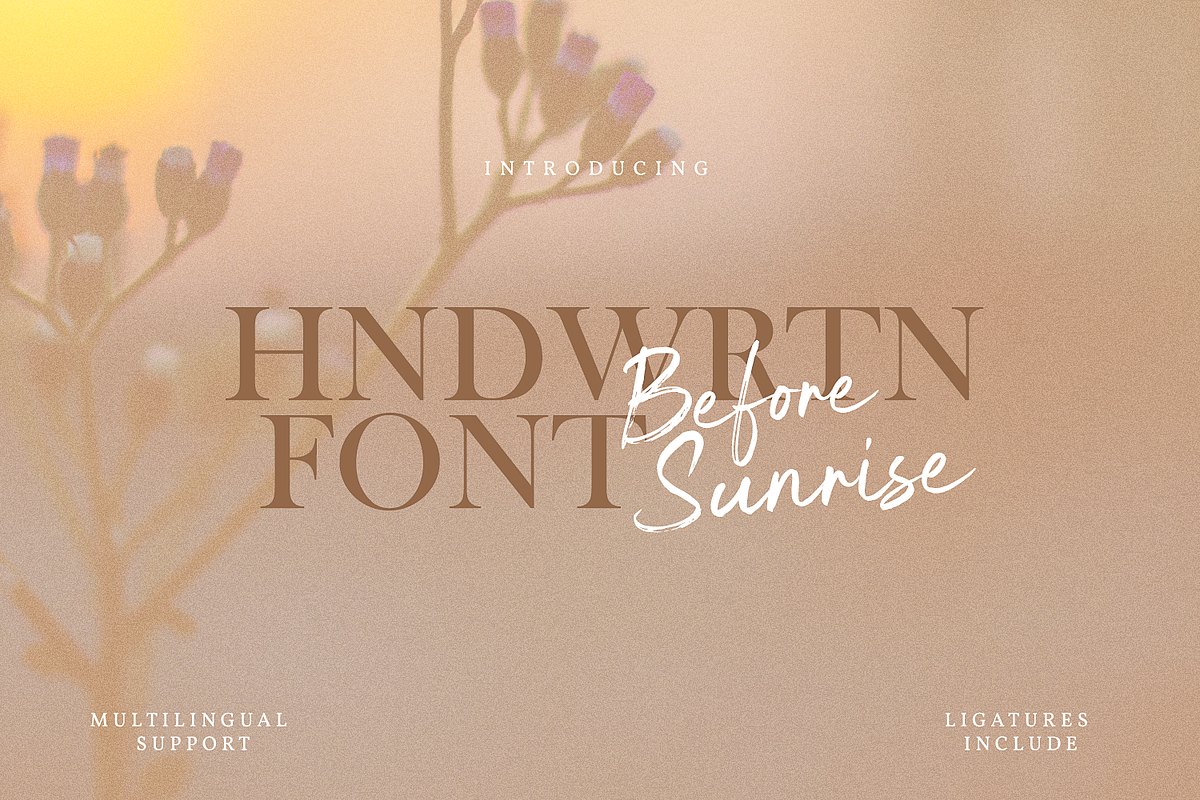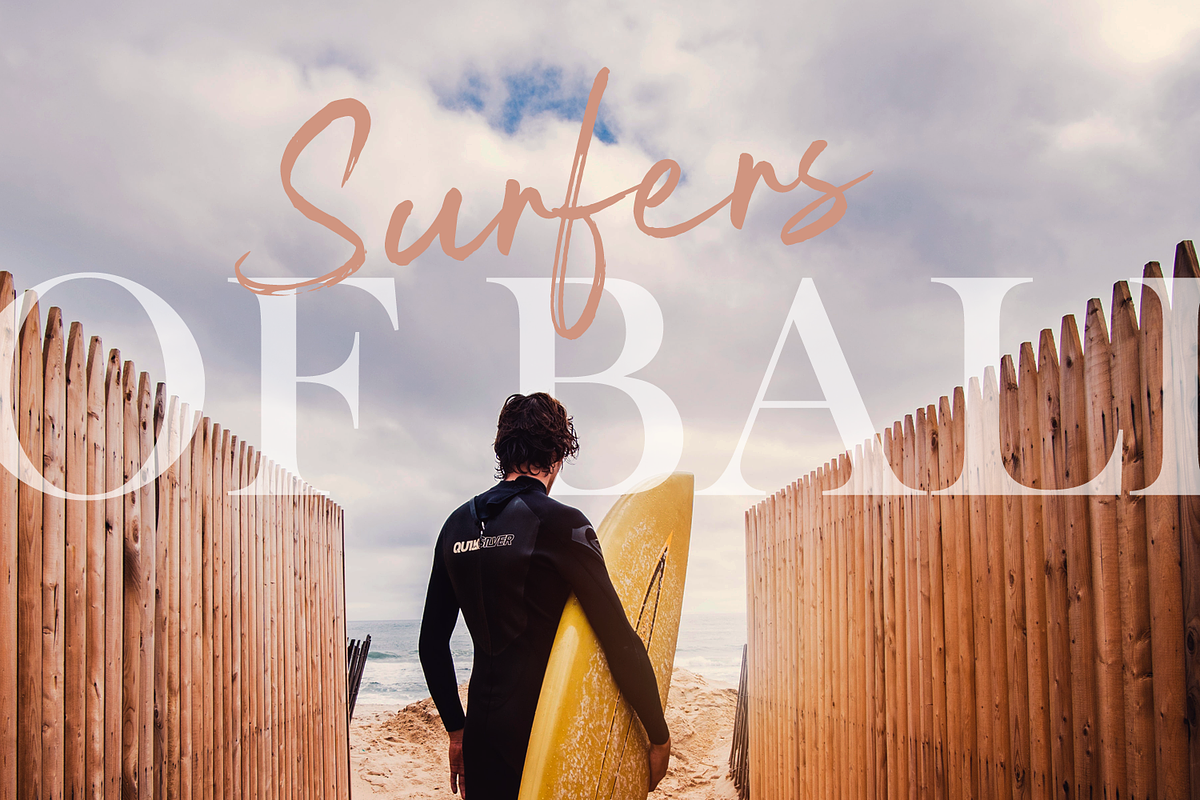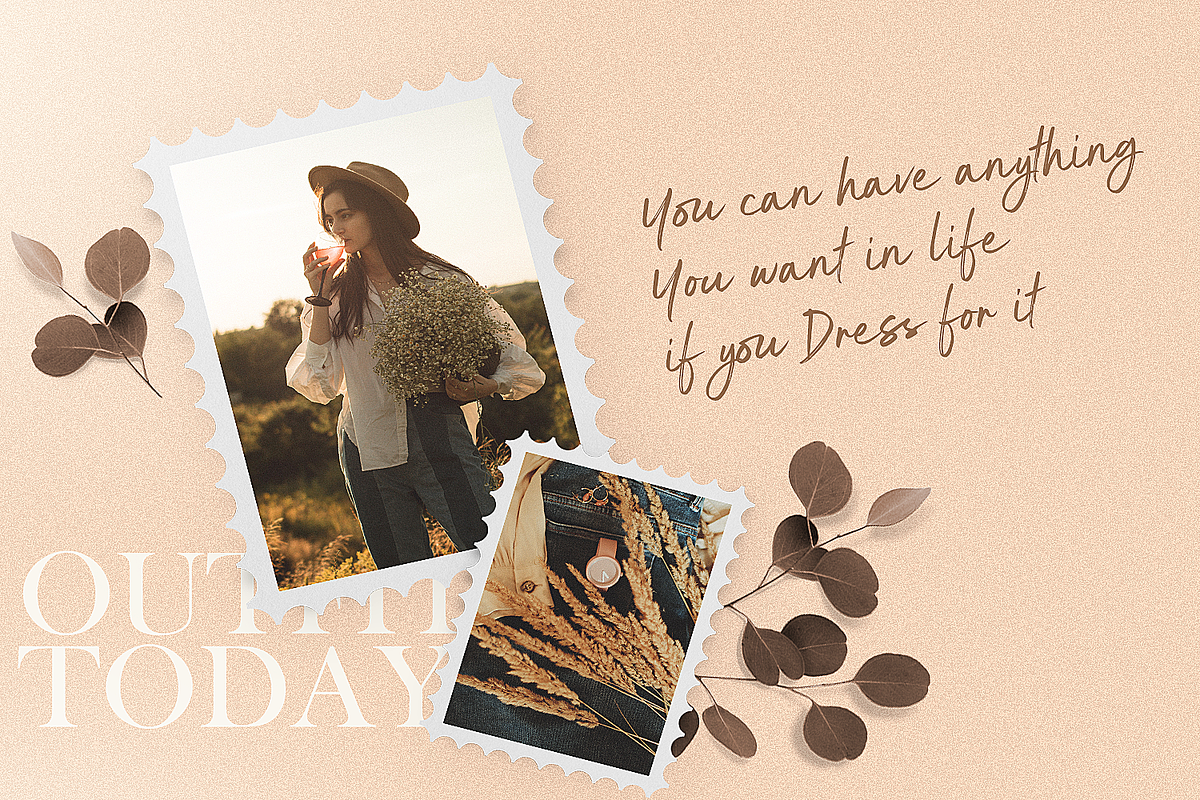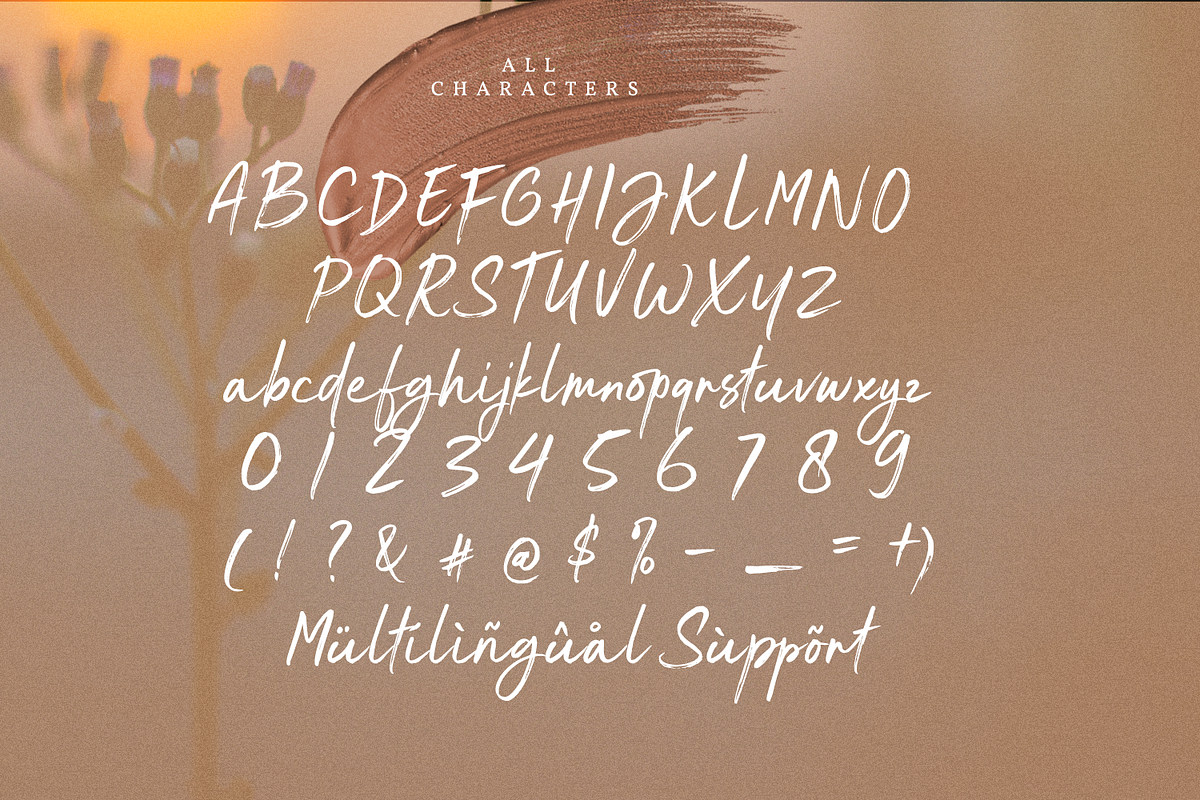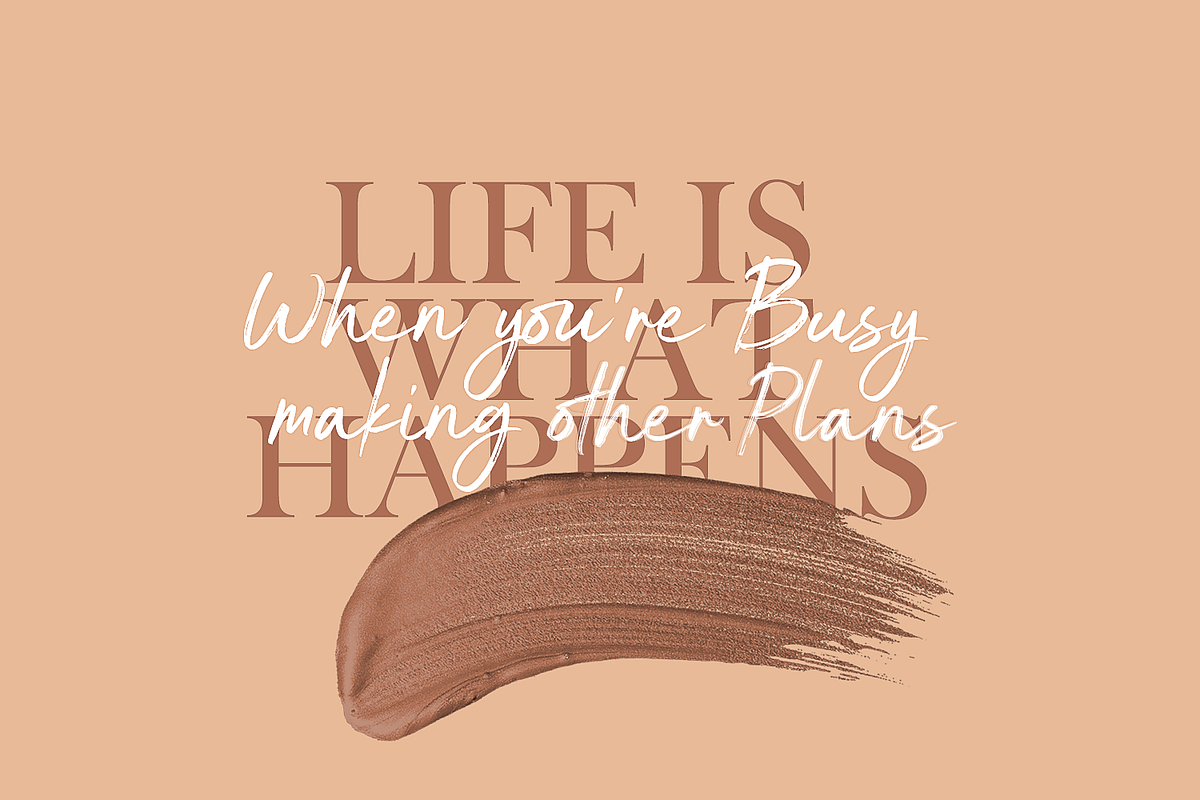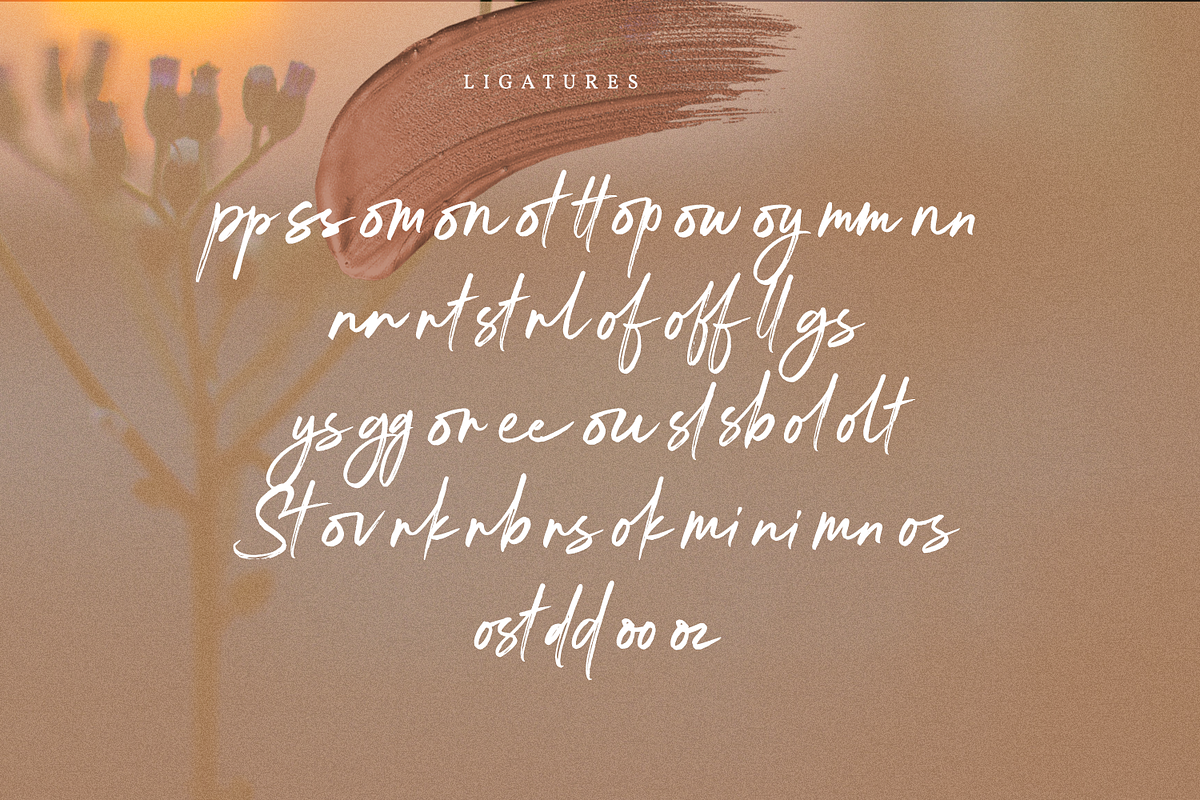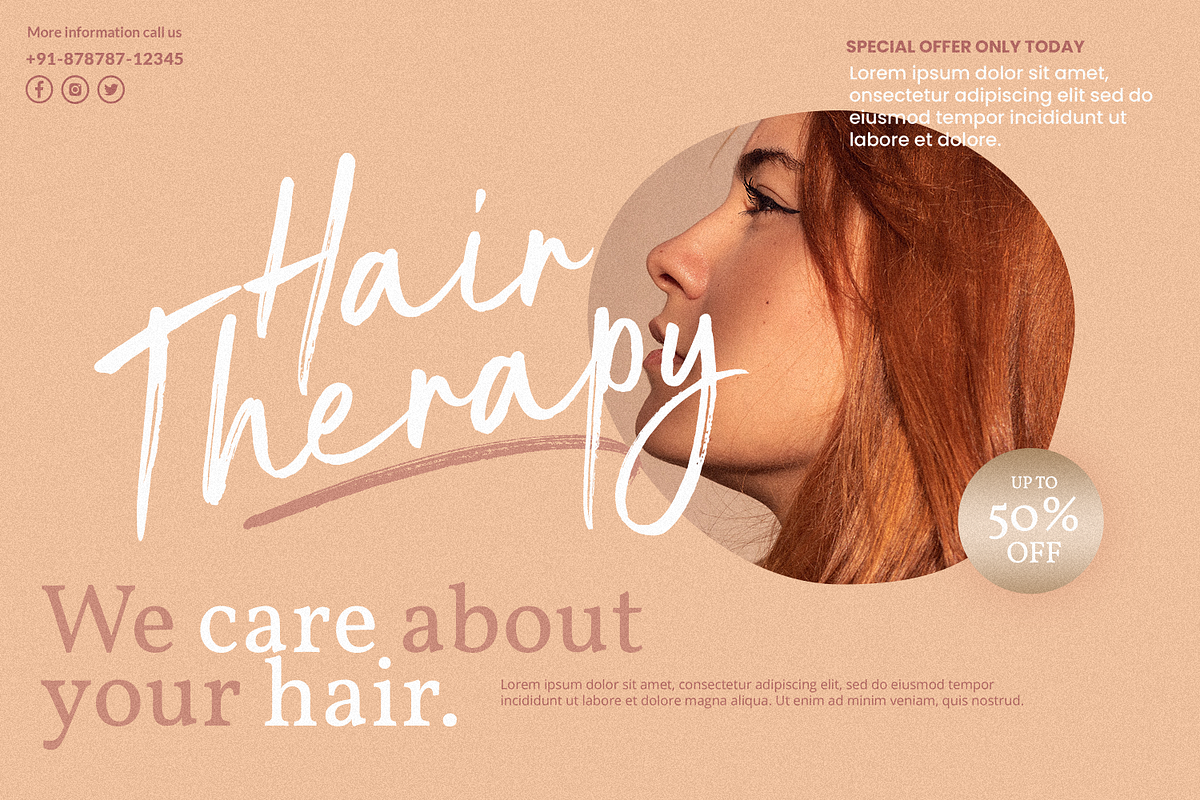
Before Sunrise
Introducing: Before Sunrise A rustic, dapper handwritten font with a personal charm. With quick dry strokes and a signature style, this font is perfect for branding projects, homeware designs, product packaging - or simply as a stylish text overlay to any background image.
multilingual support. Ligatures Are also available for several lowercase characters accessible via software with opentype capability or a glyphs panel, e.g. Photoshop/Illustrator.